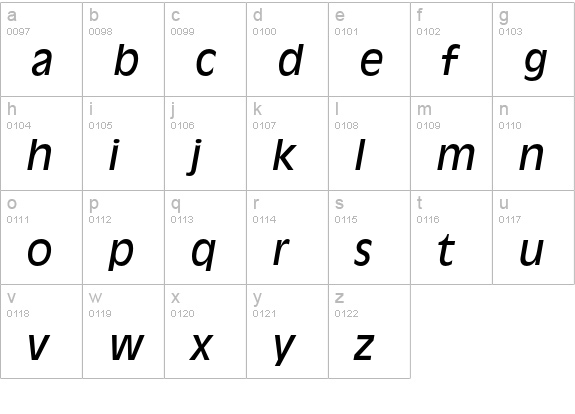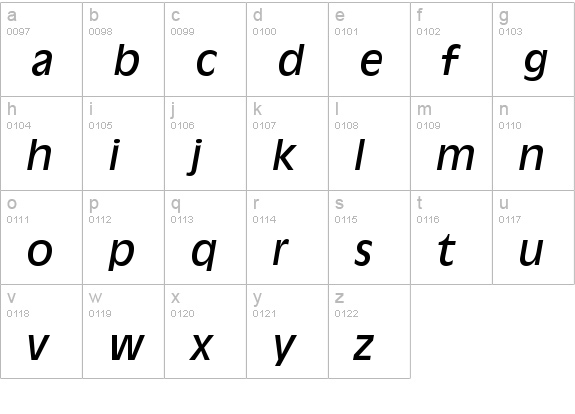
Antique Olive Std Italic Font Details
Antique Olive Std Italic is a distinctive, italic variant in the Antique typeface family \xE2\x80\x94 well suited to design and typography projects.
The Antique Olive Std Italic font exudes elegance and sophistication with its delicate curves and graceful slant. Its timeless appeal makes it a perfect choice for adding a touch of refinement to any design project. The italic style of this font adds a sense of movement and fluidity, making it ideal for conveying a sense of sophistication and class. What's even better is that Antique Olive Std Italic font is available for free download at FontsMarket.com. This means you can easily access this exquisite font and elevate your designs without any cost. So go ahead and enhance your projects with the charm and beauty of Antique Olive Std Italic font, available for free at FontsMarket.com.